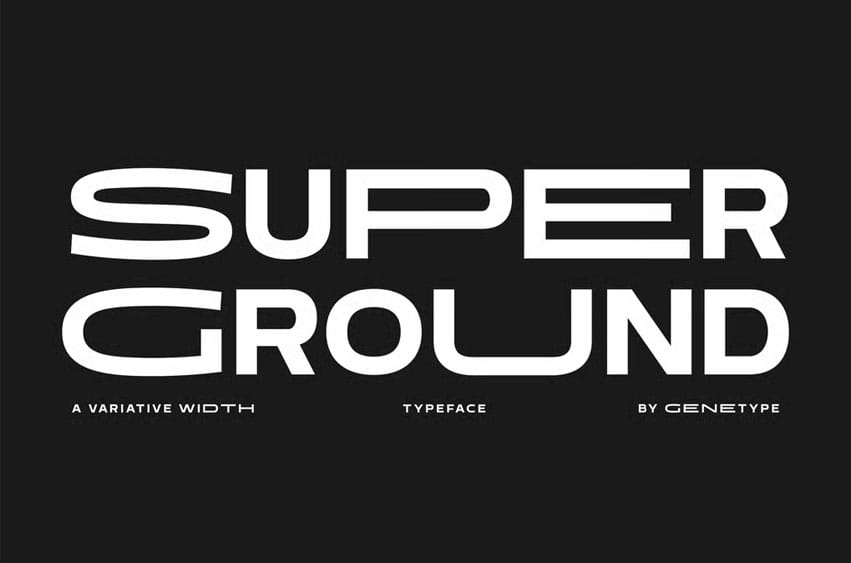
Superground Font is a futuristic and bold sans-serif typeface built with dynamic geometric forms and adjustable width variations. Its sleek structure, wide letterforms, and sharp edges bring a strong visual rhythm that feels both modern and energetic. Designed for versatility, Superground performs perfectly in tech-driven layouts, sports branding, urban design, and bold advertising headlines.
With its 2 width styles, this font allows flexible typography exploration — from ultra-wide futuristic titles to tight, compact layouts. Each character is precisely balanced to deliver clarity and impact across both digital and print media. Ideal for logos, posters, web banners, and motion graphics, Superground comes with uppercase, numerals, punctuation, and multilingual support.
Whether for high-energy campaigns, brands, or modern editorial concepts, Superground injects power and futuristic style into every design. Available in OTF, TTF, and WOFF formats for easy installation and compatibility across all platforms.